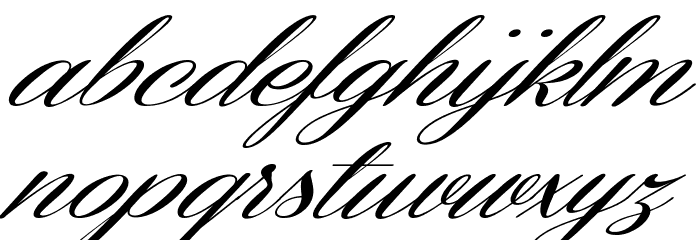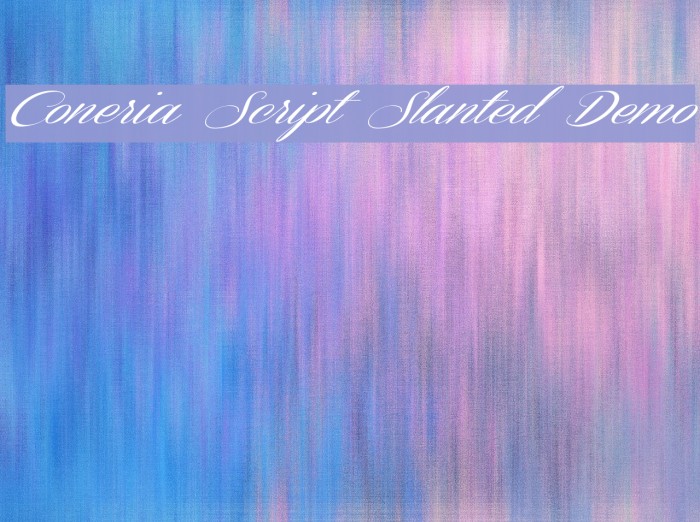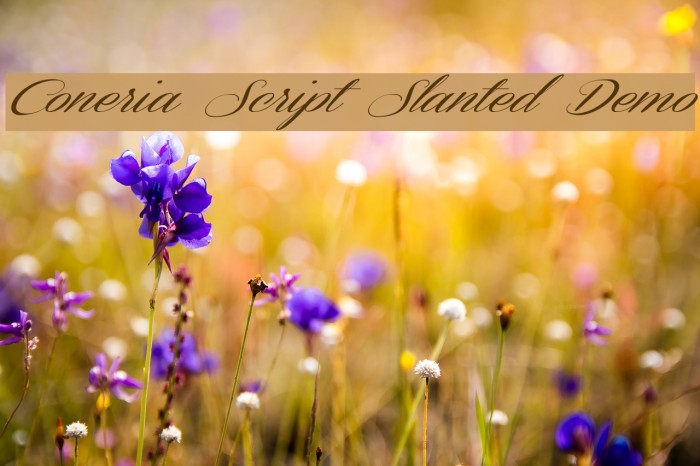
Coneria Script Slanted Demo Font
This elegant script font features a slanted, flowing design that mimics the fluidity of cursive handwriting. The characters are connected with smooth, sweeping strokes, giving it a sophisticated and graceful appearance. The uppercase letters are slightly larger and more ornate, while the lowercase letters maintain a consistent flow, enhancing readability. The numerals and special characters are designed to match the overall style, ensuring a cohesive look. This font is ideal for projects that require a touch of elegance and formality, such as wedding invitations, certificates, and upscale branding.
A slanted, elegant script font with flowing, connected characters.
- Proposed Projects: Ideal for wedding invitations, formal event programs, elegant branding, and certificates.
- Overall Style: Elegant, Formal
- Use Case: Headlines, Invitations, Branding